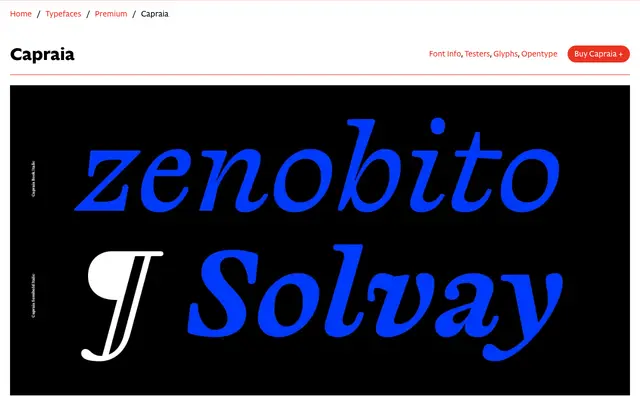
Capraia
CAST · Giulio Galli · 2018
A book typeface by Giulio Galli born from the collision of Caslon and Baskerville, with unconventional letterforms that read quietly in text and reveal themselves at display sizes.
Designed between 2018 and 2020, Capraia began as a tribute to Caslon's Great Primer before Baskerville took hold, producing a seven-weight family with matching italics and variable font counterparts. A large x-height, medium contrast and wide bracketed serifs anchor it firmly in continuous reading, while details like ball terminals, an idiosyncratic G and Q, and slanted roman italics keep it from feeling conventional. The Book weight addresses lighter preferences common among Italian publishers, and the slightly heavier Regular is pitched at the wider international market.
Capraia draws from both Caslon and Baskerville traditions, combining bracketed serifs, medium contrast and a big x-height in a manner consistent with transitional serif classification. Unconventional letterforms and slanted roman italics give it a contemporary inflection.